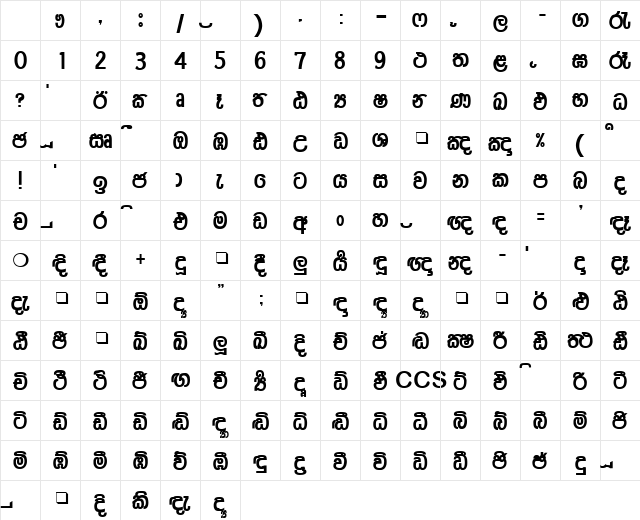
Complete AM_Araliya Bold glyph index. Displaying only characters natively supported by AM_Araliya Bold font.
AM_Araliya is a composed and adaptable typeface that performs quietly and consistently across a wide range of design contexts. Its bold stroke weight gives it real presence on the page.